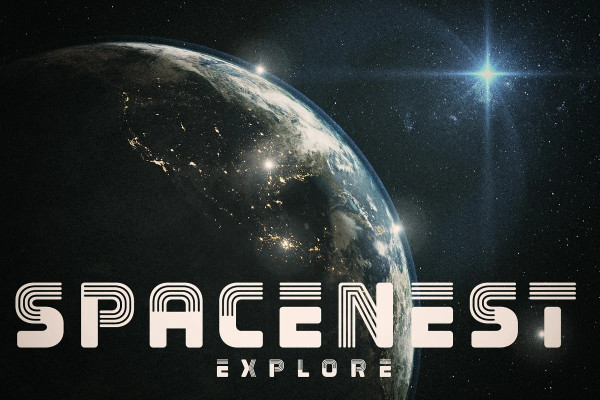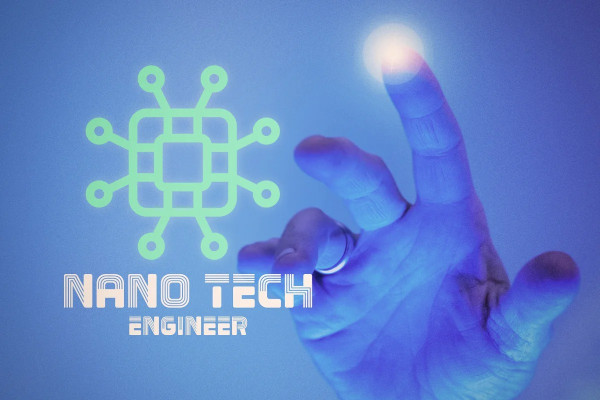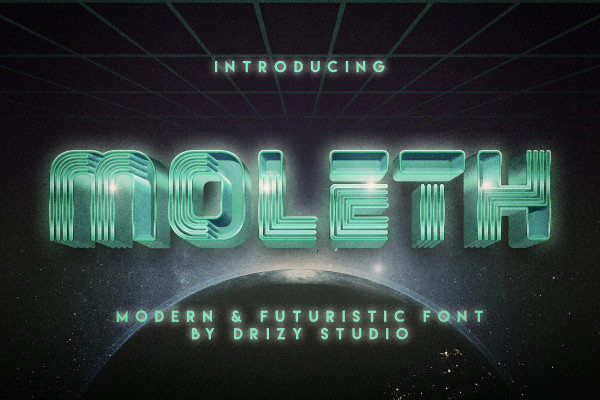
Moleth Futuristic Font
Moleth Futuristic Font is Modern & Futuristic Font from Drizy studio. Offering all the basic styles you will need for a successful project.